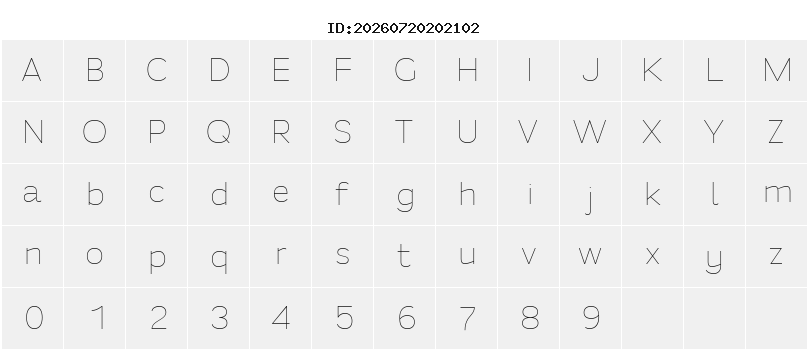
• Font Name: Fortheenas_01
• Designer: Situjuh Nazara
About Fortheenas_01.otf
Fortheenas_01.otf is a modern, elegant sans-serif font designed for ultimate readability and visual harmony. Perfect for branding, headlines, web design, and print materials.